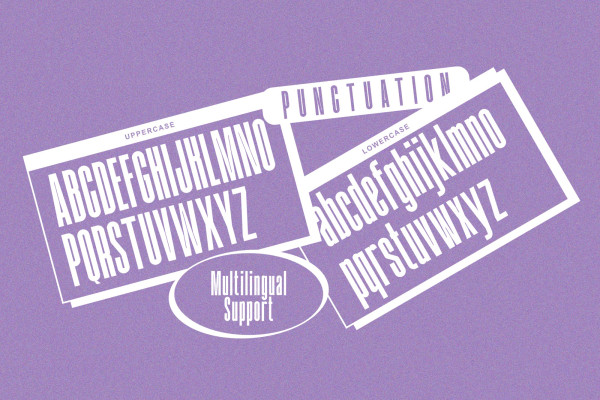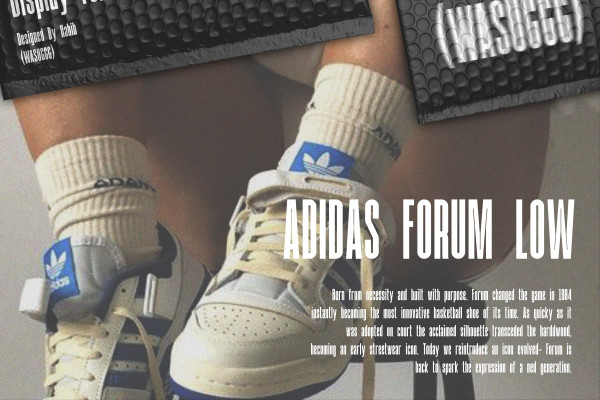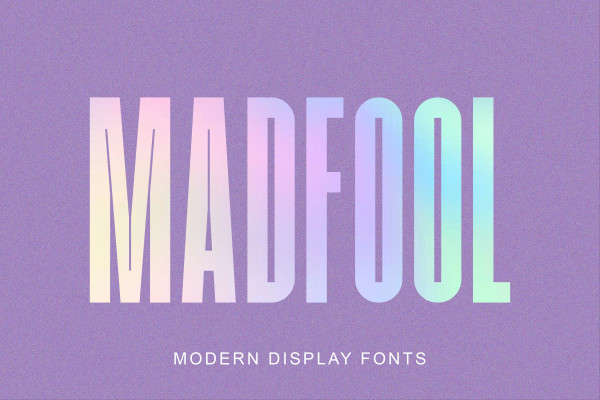
Madfool Font
Madfool Font is the perfect fit. It’s a memorable, strong and elegant typeface. It is a modern clean Display font. With bold stroke, fun character. To give you an extra creative work. Madfool font support multilingual more than 100+ language.
This font is good for logo design, Social media, Movie Titles, Books Titles, a short text even a long text letter and good for your secondary text font with sans or serif. Make a stunning work with Madfoolfont.